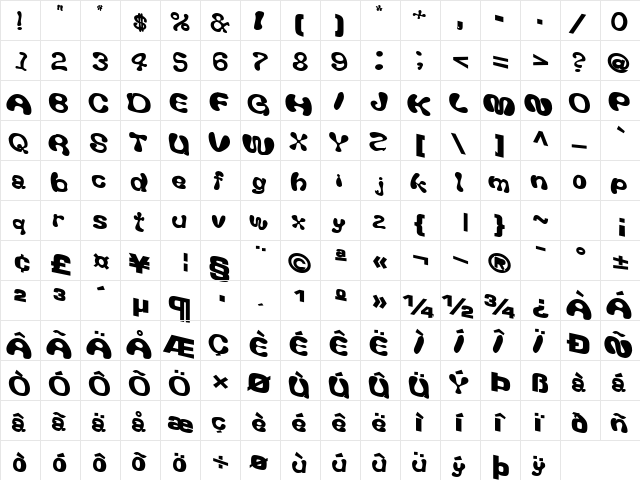
GiveAndTake18 Bold Font Preview
GiveAndTake18 Bold
GiveAndTake18 Bold Font Details
Design Context for GiveAndTake18 Typeface
GiveAndTake18 is a composed and adaptable typeface that performs quietly and consistently across a wide range of design contexts. Its bold stroke weight gives it real presence on the page.